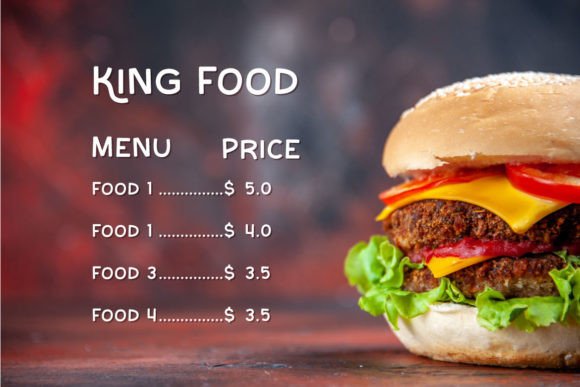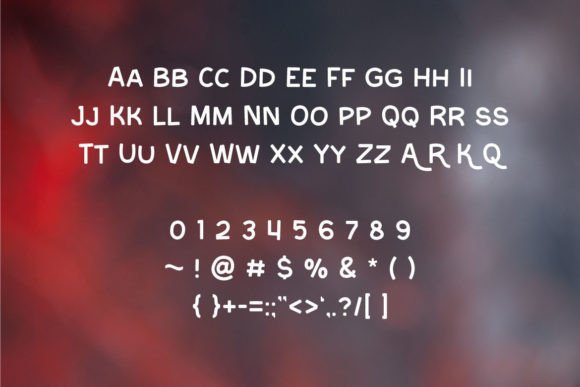
Introduction to Hamburges Font
Imagine you’re brainstorming ideas for your latest design project, and suddenly, the perfect font pops into your head. For designers, that ‘aha’ moment is what makes all the hard work worth it. The Hamburges Font is one such gem that can elevate your creative project from ordinary to extraordinary.
This handmade comical font is a masterpiece of bold, rounded, and eye-catching design. Its versatility makes it perfect for a wide range of applications, from menu books and children’s books to comic illustrations, kindergarten materials, and even movie titles. Whether you’re working on a free download or a high-quality design resource, the Hamburges Font is sure to bring a smile to your clients’ faces.
Key Features of Hamburges Font
- Features a transparent background, making it suitable for use on various backgrounds and designs.
- Supports a wide range of languages, making it a versatile design resource.
- Includes a comprehensive character set with various glyphs, making it suitable for a wide range of creative projects.
- Designed to be highly legible and visually appealing, making it an excellent choice for any design project.
Honest Review: Hamburges Font
I recently stumbled upon the Hamburges Font, and I must say, it’s a pretty interesting design resource. As a designer, I’m always on the lookout for unique fonts to add some creativity to my projects.
What works well: ✨ The Hamburges Font has a transparent background, making it super versatile for use on any design background. The font itself is high quality, with clear lines and a consistent style throughout. It’s perfect for designers who want to add a touch of elegance to their creative project.
Limitations: ⚠️ While the font is generally high quality, it’s not suitable for all types of projects. The design is quite bold and playful, so it’s best used for creative projects where a fun and quirky vibe is desired. Additionally, some users may find the font a bit too stylized, which can be a limitation for those who prefer more traditional typography.
Overall, I’d say the Hamburges Font is a great addition to any designer’s toolkit. It’s a fun and creative font that can add a lot of personality to a project.
- Perfect for creative projects where a fun and quirky vibe is desired
- High-quality design with clear lines and consistent style
- Transparent background for versatility
- Suitable for use on various design backgrounds
The Hamburges Font is commonly used in various design applications, including logos, headings, titles, and overlays. Its high-quality design and transparent background feature make it an ideal choice for creative projects, such as branding, marketing materials, and graphic design.